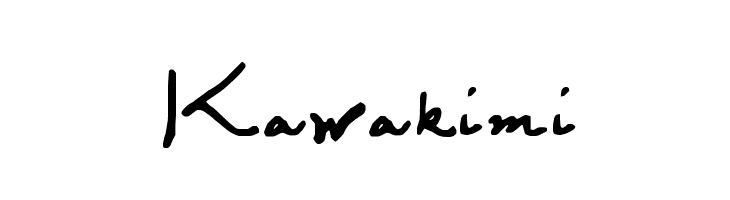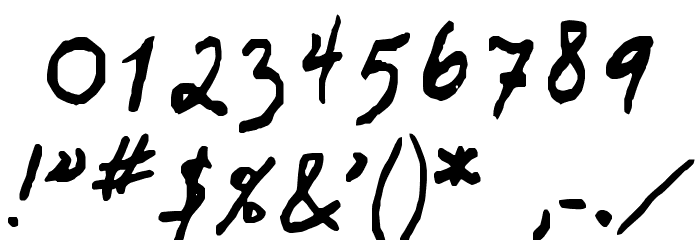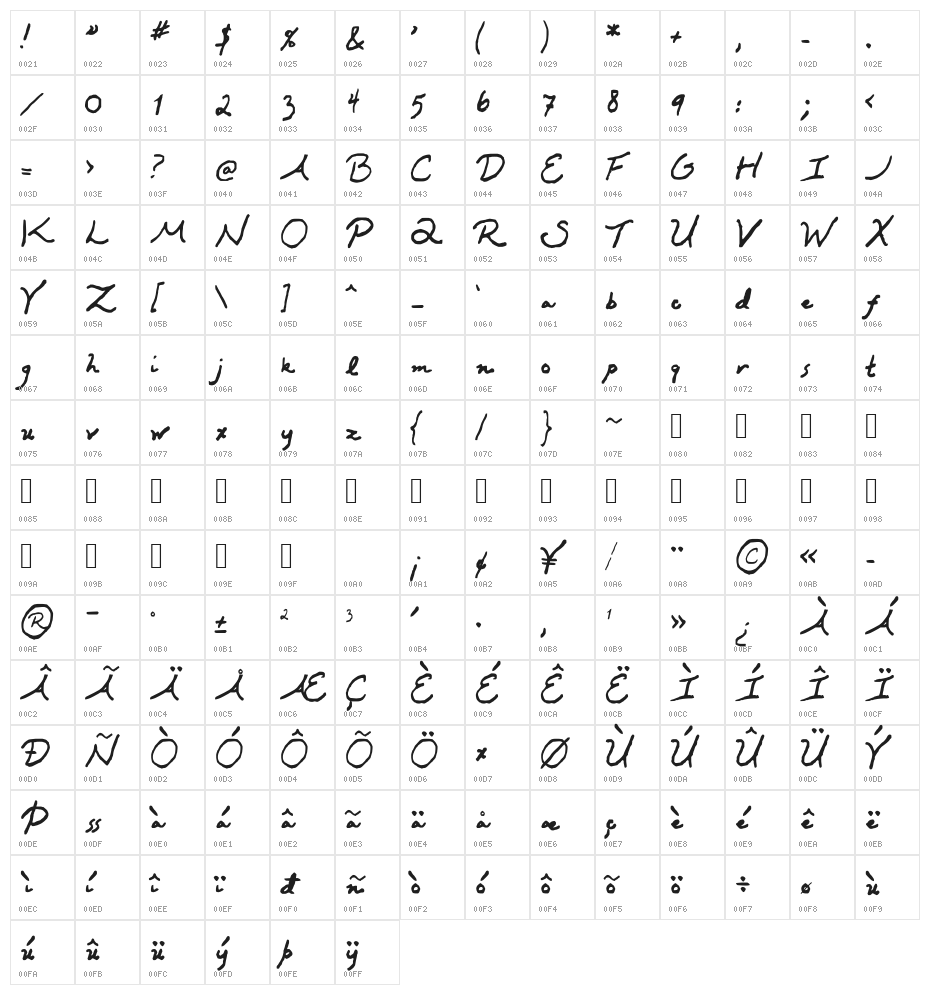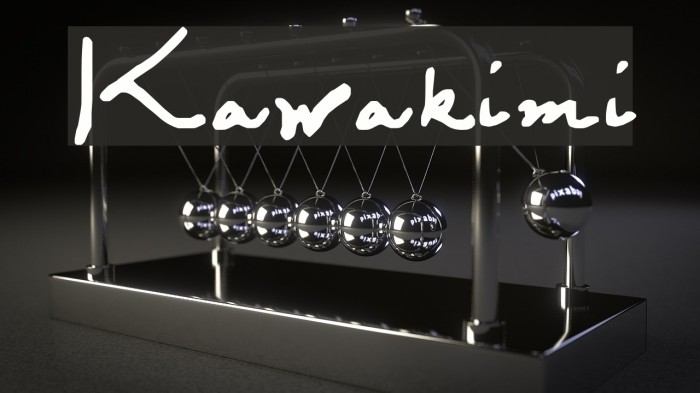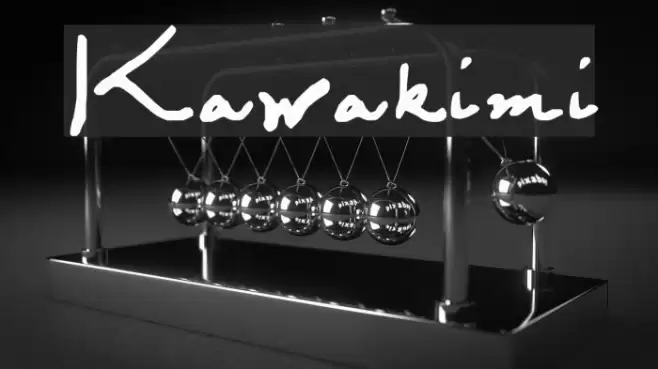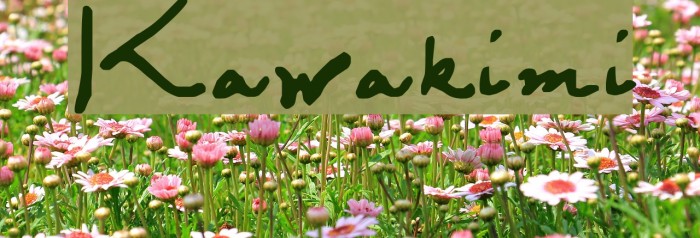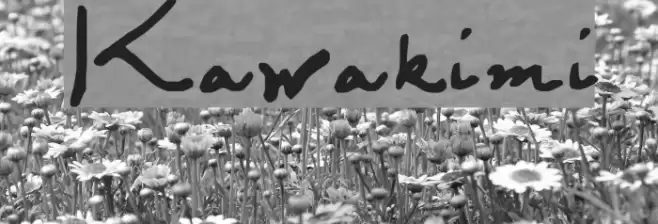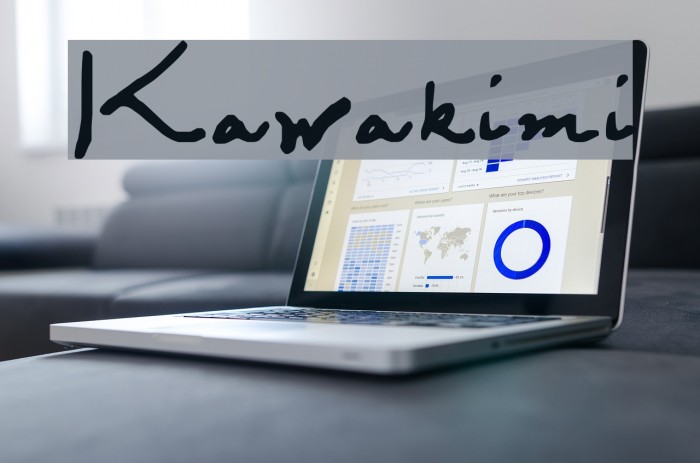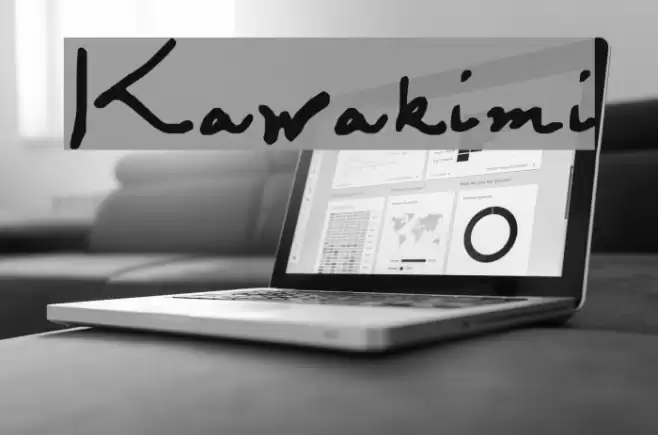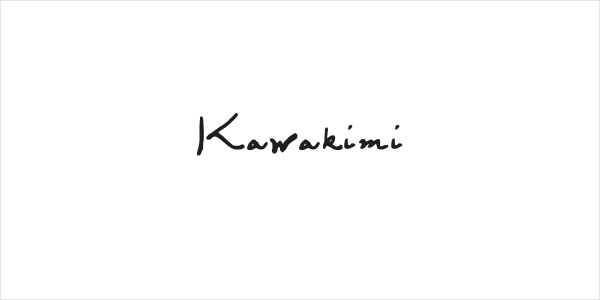
Kawakimi Font
Kawakimi Description
This font features a handwritten style that exudes a casual and personal touch. The characters are fluid and slightly irregular, mimicking the natural flow of handwriting. The uppercase letters are slightly more structured, while the lowercase letters have a more relaxed and freeform appearance. The numbers and special characters maintain the same handwritten aesthetic, adding to the overall cohesive look. The strokes vary in thickness, providing a medium contrast that enhances readability while maintaining the font's unique charm.